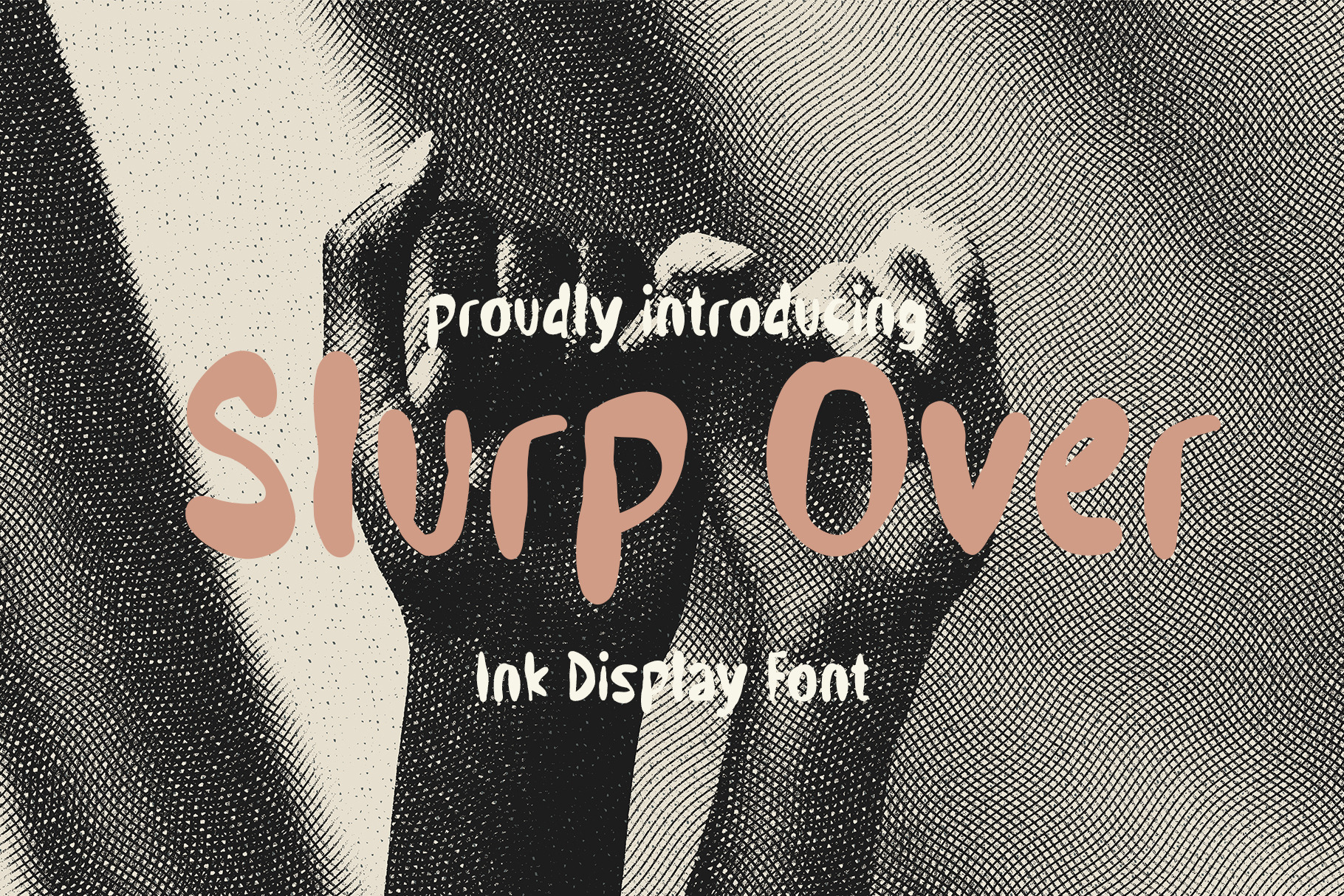
Slurp Over Ink Display Font
Slurp Over font is an ink handwritten typeface that combines vintage and modern styles into a captivating unity. It is created with the intention of bringing unique character, with a classic yet fresh and contemporary touch.
The story behind the creation of this font begins with our desire to create a typeface that merges the aesthetics of vintage with the dynamic style of the modern era. We are inspired by the beauty and allure of handwriting that combines traditional and innovative elements. We aim to create a font that evokes the warmth and authenticity of vintage handwriting, while providing a fresh and contemporary touch that aligns with the developments in modern design.
Slurp Over is the result of our exploration in creating a harmonious blend of vintage and modern elements. Each letter and character is filled with captivating curves that make a strong impression in designs. This font is suitable for various creative projects, such as branding, posters, merchandise, and more, where you want to create a unique, attractive, and captivating impression.
By using the Slurp Over font in your design journey, you will bring a classic yet refreshing and stylish vibe. This font will enrich your designs with an exclusive blend of vintage and modern touches, creating visually appealing and captivating visuals.